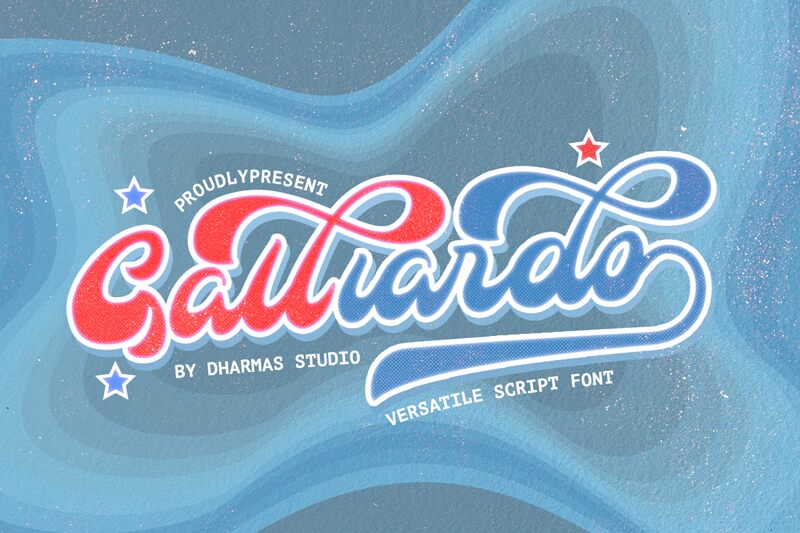
Galliardo, designed by Dharmas Studio, stands out with its extra-bold weight and a smooth brush style that exudes a retro flair. This font captures the essence of handcrafted artistry, each stroke reflecting the personal touch of an artist's brush. The fluidity of Galliardo's characters adds a dynamic rhythm to text, making it an excellent choice for projects requiring a blend of modern boldness and nostalgic charm.
The font's assertive presence is tempered by its smooth contours, offering a balance that is both visually striking and pleasantly approachable. Ideal for branding, advertising, and attention-grabbing headlines, Galliardo possesses versatility that can elevate various creative endeavors. Its retro vibe pairs well with designs evoking past eras while still maintaining relevance in contemporary contexts. With Galliardo, designers have access to a typeface that truly marries character with functionality.